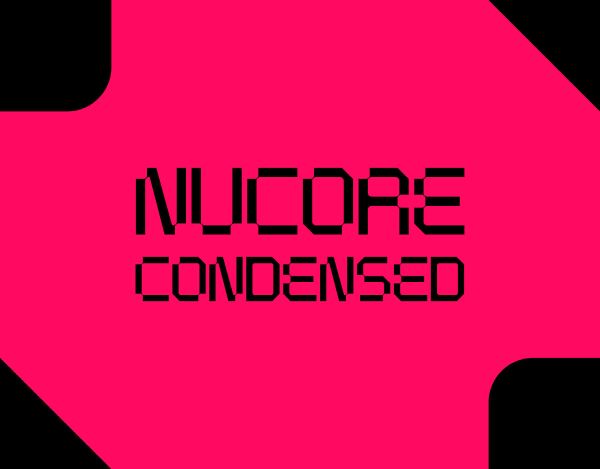
NuCore Font
NuCore Condensed by Artyom Galinov is a condensed font that channels the high-contrast, sci-fi-adjacent visual language of gaming UI and cyberpunk aesthetics into something typographically precise and genuinely usable. Its condensed structure gives it real vertical presence — letterforms that stack cleanly, read sharply, and project a sense of technical authority at display scale. The influence of game design and speculative future aesthetics runs clearly through the construction of each character without tipping into pastiche: this is a typeface with a clear design point of view and the craft to back it up. It’s built for gaming graphics, posters, editorial headlines, tech branding, and any project that needs its typography to look like it means business. Free for personal use.